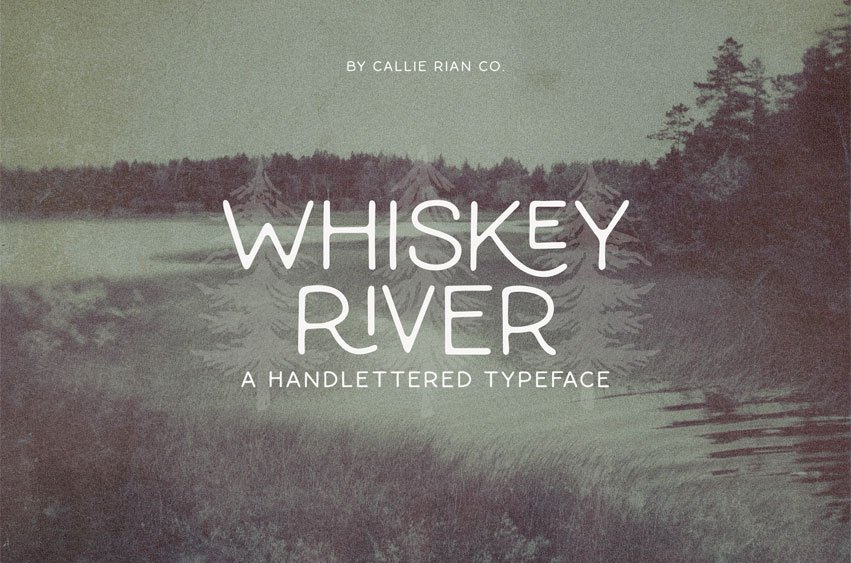
Whiskey River Font is a simple monoline typeface in three weights, designed for quotes and legibility.
Whiskey River works beautifully for subtext, easy quotes, and rustic projects.